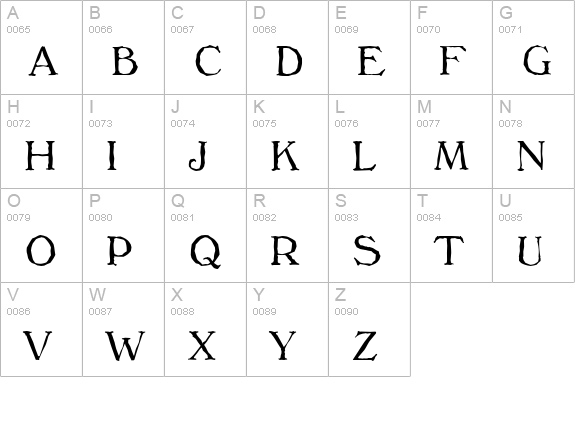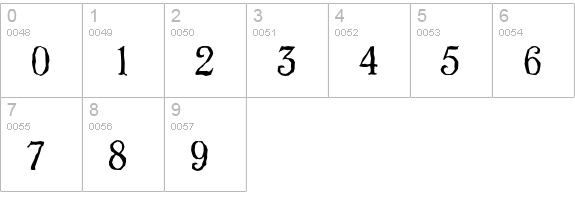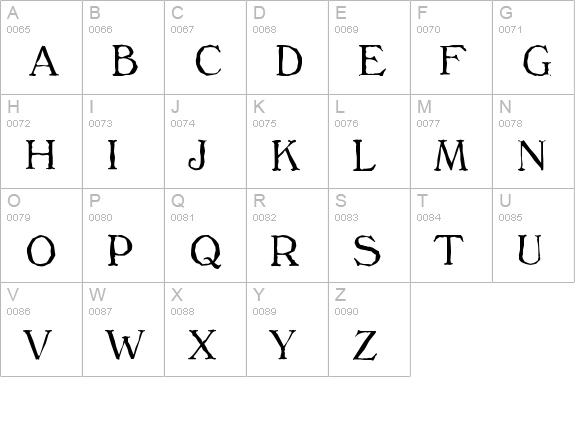
VeronaAntique-Light-Regular Font Details
VeronaAntique-Light-Regular is a refined, elegant variant in the VeronaAntique typeface family \xE2\x80\x94 well suited to elegant body text, refined sub-headings, and luxury branding.
VeronaAntique-Light-Regular is a timeless and elegant font that exudes sophistication and charm. Its delicate serifs and classic design make it perfect for adding a touch of vintage flair to any project. The graceful curves and clean lines of this font create a sense of refinement and grace. This font is ideal for use in invitations, branding, packaging, and other design projects where a touch of old-world charm is desired. Whether you're working on a wedding invitation or a logo for a luxury brand, VeronaAntique-Light-Regular will add a touch of class and elegance to your designs. And the best part? VeronaAntique-Light-Regular is available for free download at FontsMarket.com. So you can add this beautiful font to your collection without breaking the bank. Download VeronaAntique-Light-Regular today and elevate your designs with its timeless beauty and sophistication.